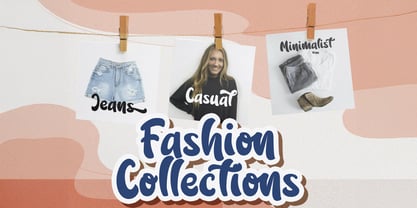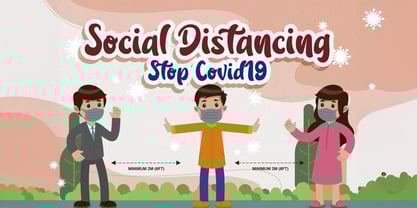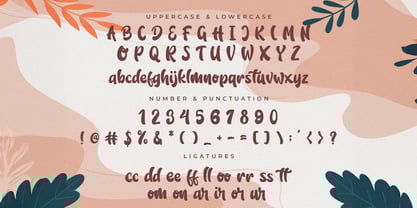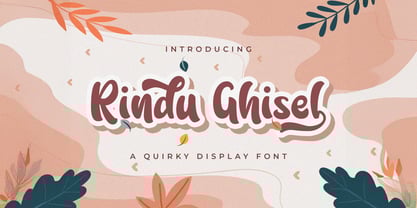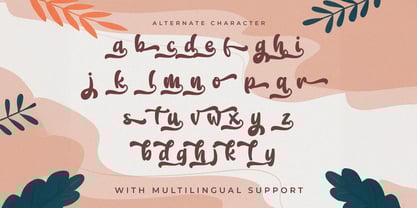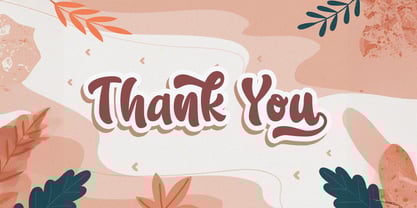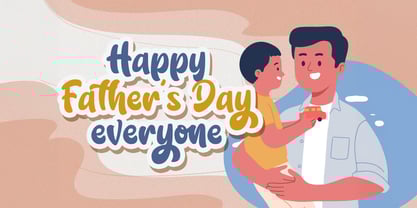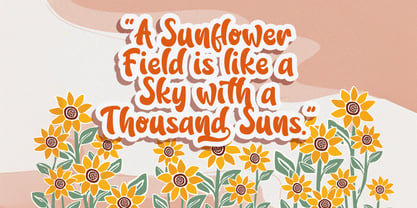
Rindu Ghisel
by Stringlabs Creative Studio
The Rindu Ghisel Font Family was designed by Virgiawan Listanto and published by Stringlabs Creative Studio. Rindu Ghisel contains 1 styles.
Rindu Ghisel is a playful and unique handwritten font that combines charm and creativity. With its quirky, flowing design, this font brings a fun and lively touch to your projects. Perfect for adding personality to logos, greeting cards, invitations, posters, and more, Rindu Ghisel is ideal for any design that needs a bit of flair and individuality.
Designers: Virgiawan Listanto
Publisher: Stringlabs Creative Studio
Foundry: Stringlabs Creative Studio
Design Owner: Stringlabs Creative Studio